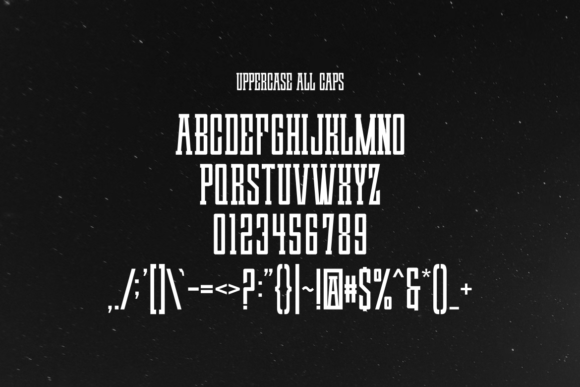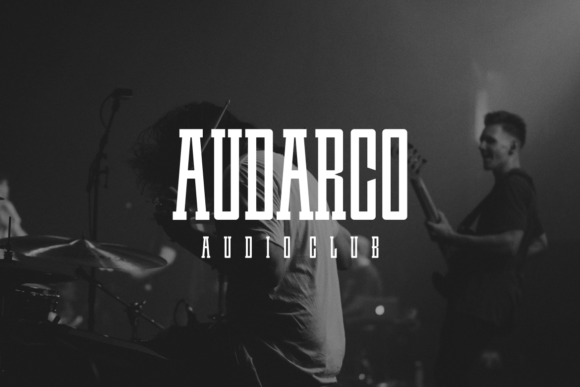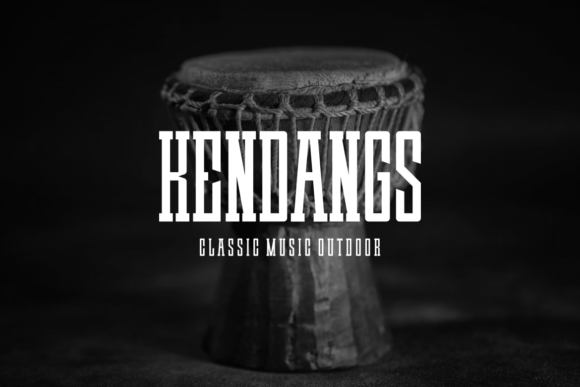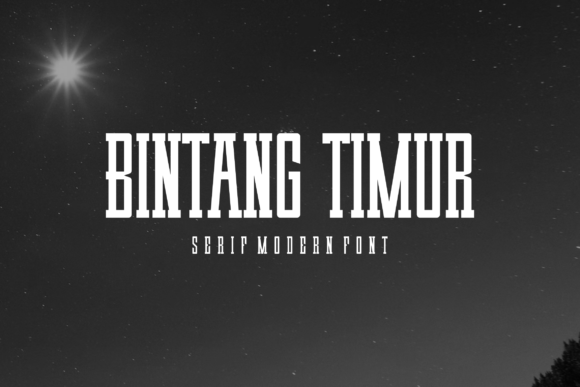
Introduction to Bintangtimur Font
Introducing our new product **BintangTimur Font** – Modern Font is a bold and authentic display font.
The font is suitable for any branding project like logo, esport, and many more outstanding in a wide range of contexts.